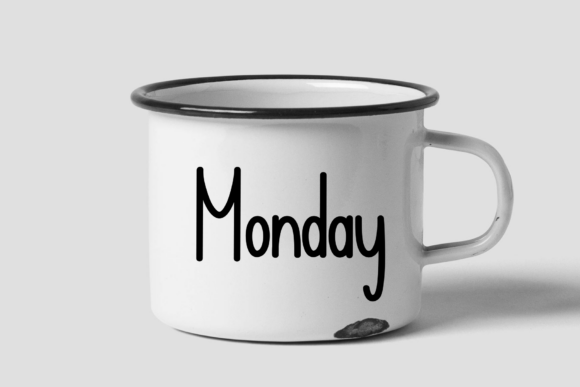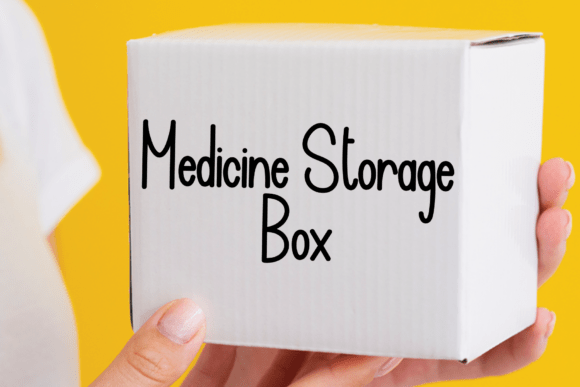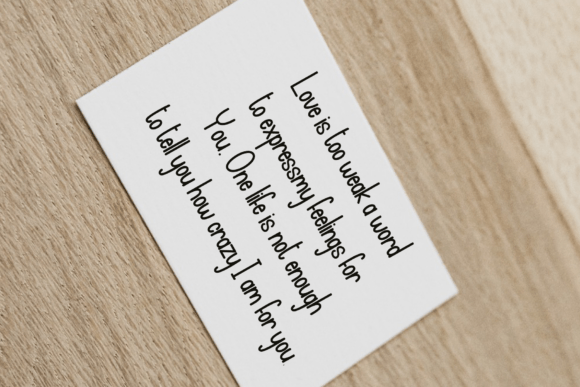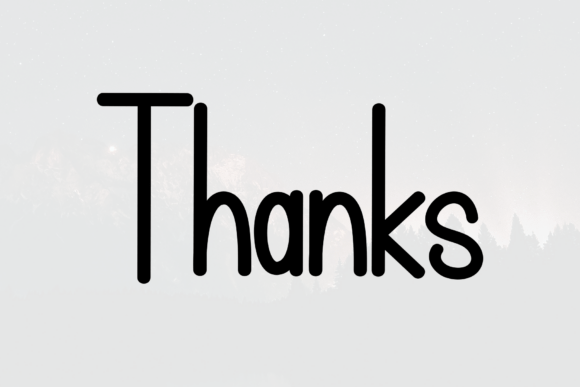
Introducing Christmas Light Font: A Charming Handwritten Delight
Are you looking for a font that captures the essence of the holiday season? Look no further than Christmas Light Font, a beautiful handwritten font that exudes a sense of heartfelt perfection. With its smooth strokes and organic lines, this font is sure to evoke a relaxed atmosphere, making it perfect for a variety of design projects.
What is Christmas Light Font?
Christmas Light Font is a charming handwritten font that is filled with a sense of warmth and coziness. Its smooth strokes and organic lines give it a natural, effortless feel that is perfect for a wide range of design applications. Whether you’re working on a branding project, creating invitations, or designing social media graphics, Christmas Light Font is the perfect choice.
Characteristics of Christmas Light Font
So, what makes Christmas Light Font so special? Here are just a few of its key characteristics:
- Smooth Strokes: Christmas Light Font features smooth, flowing strokes that give it a natural, handwritten feel.
- Organic Lines: The font’s organic lines add a touch of whimsy and charm, making it perfect for designs that require a personal touch.
- Heartfelt Perfection: Christmas Light Font is filled with a sense of heartfelt perfection, making it perfect for designs that require a warm, inviting feel.
- Relaxed Atmosphere: The font’s smooth strokes and organic lines evoke a relaxed atmosphere, making it perfect for designs that require a calming, soothing feel.
Uses for Christmas Light Font
So, what can you use Christmas Light Font for? The possibilities are endless! Here are just a few ideas to get you started:
- Branding: Use Christmas Light Font to create a warm, inviting brand identity that will leave a lasting impression on your customers.
- Invitations: Create beautiful, personalized invitations for weddings, parties, and other special events using Christmas Light Font.
- Social Media Graphics: Use Christmas Light Font to create eye-catching social media graphics that will help you stand out from the crowd.
- Holiday Cards: Create beautiful holiday cards using Christmas Light Font, perfect for sending to friends and family during the holiday season.
Tips for Using Christmas Light Font
Here are a few tips for getting the most out of Christmas Light Font:
- Pair it with Bold Fonts: Pair Christmas Light Font with bold fonts to create a striking contrast that will make your designs pop.
- Use it in Large Sizes: Use Christmas Light Font in large sizes to create a dramatic, eye-catching effect.
In conclusion, Christmas Light Font is a charming handwritten font that is perfect for a wide range of design projects. Its smooth strokes and organic lines evoke a relaxed atmosphere, making it perfect for designs that require a warm, inviting feel. Whether you’re working on a branding project, creating invitations, or designing social media graphics, Christmas Light Font is the perfect choice. So why wait? Download Christmas Light Font today and start creating beautiful designs that will leave a lasting impression on your audience.